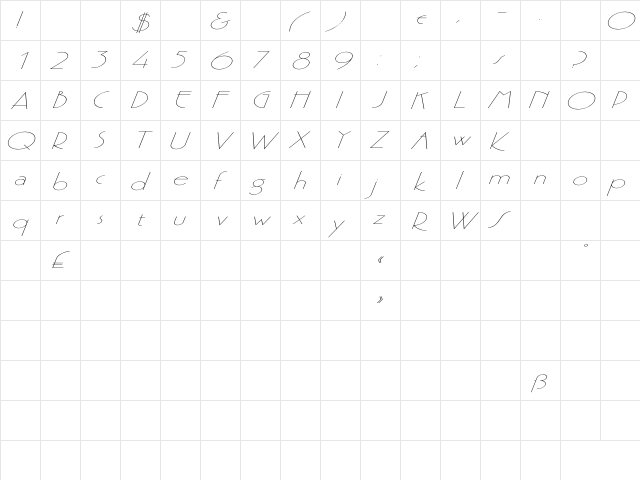
Premi Ex Italic Italic
Design Context for Premi Ex Italic Typeface
Premi Ex Italic takes a measured approach to typography — its balanced proportions and neutral character make it a reliable workhorse for both digital and print work. The dynamic lean of this cut emphasises speed and emphasis in any layout.
Pro Tip: Use Premi Ex Italic for emphasis, pull quotes, and subheadings where its slanted energy can add rhythm to the layout.